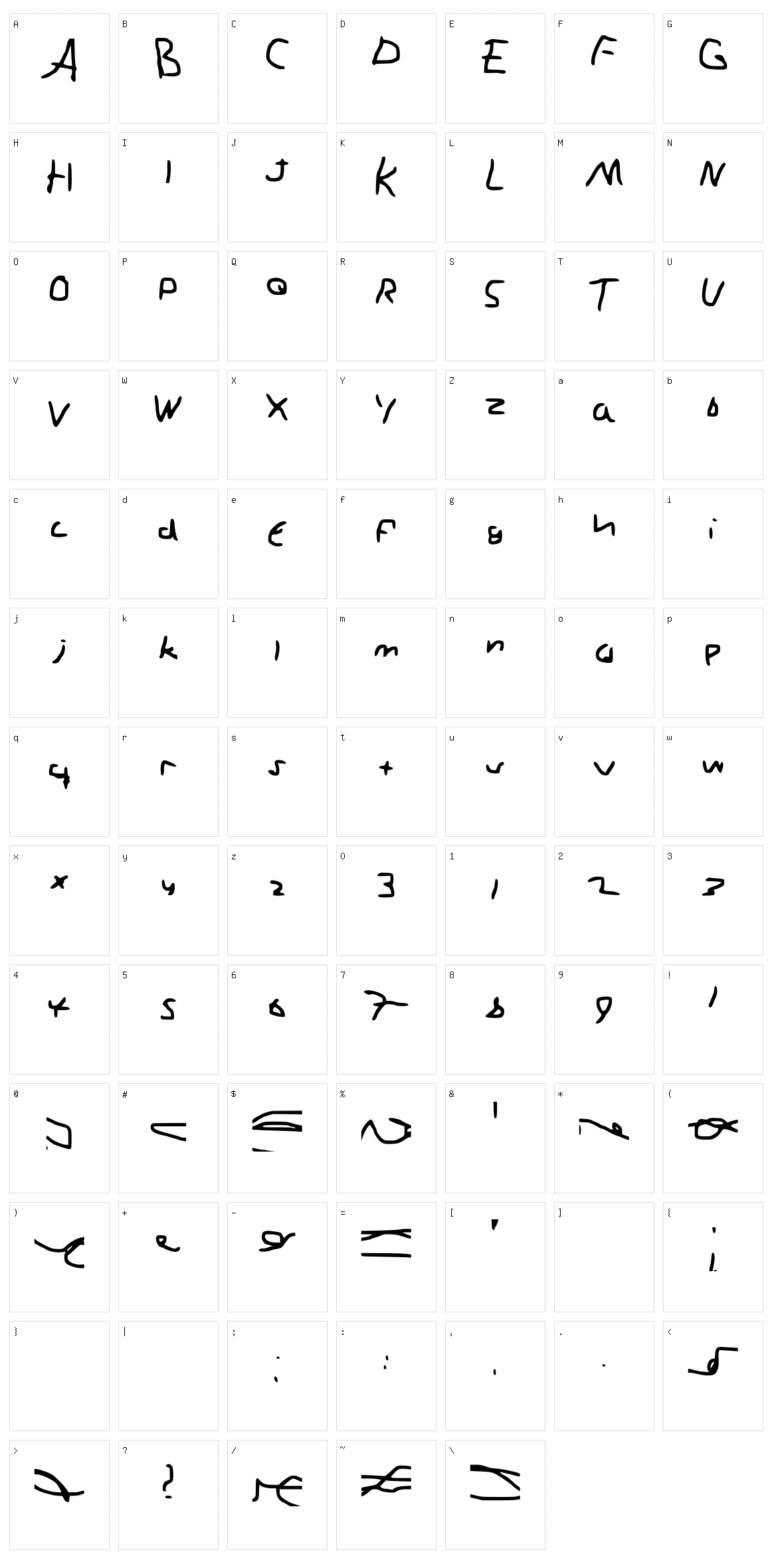
The free font Ghgy is carefully designed by Abor Lemunan, showcasing a thoughtful balance of creativity and usability and falls under the Script font style. When you download the ZIP file, it contains only 15.05 KB of font files, making it lightweight and quick to download. Please review the license details below to understand permitted usage and distribution rights. If license information is not available, we recommend using this font for personal projects only or contacting the author directly for commercial usage permissions.